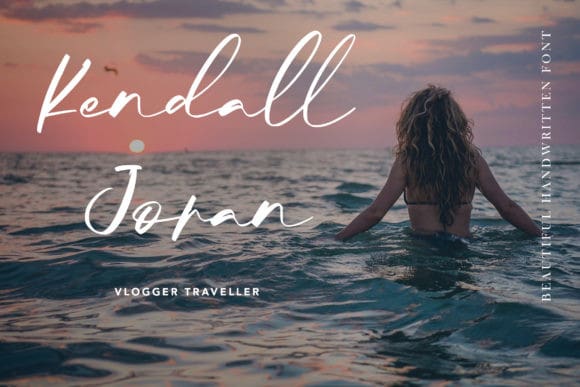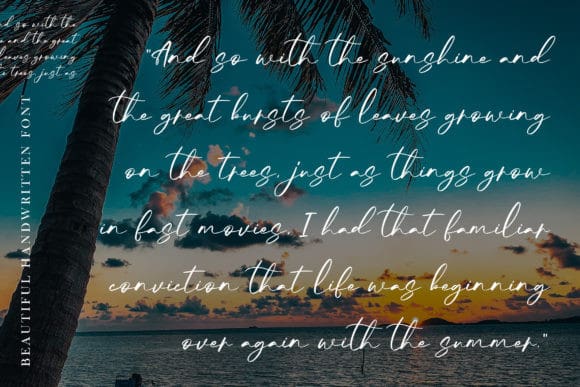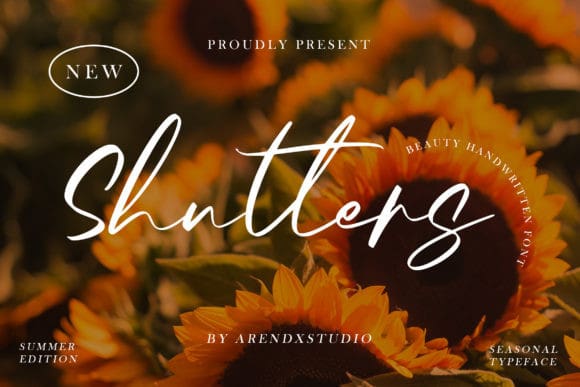
Shutters Script Font
Shutters Script Font is a lovely and delicate script font that exudes elegance and class. This font was particularly crafted for those who need a beautiful and refreshing look to their designs.